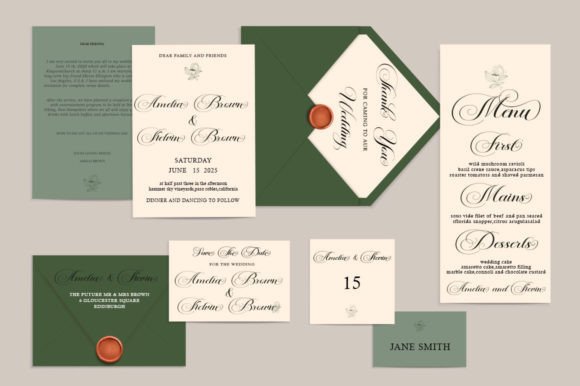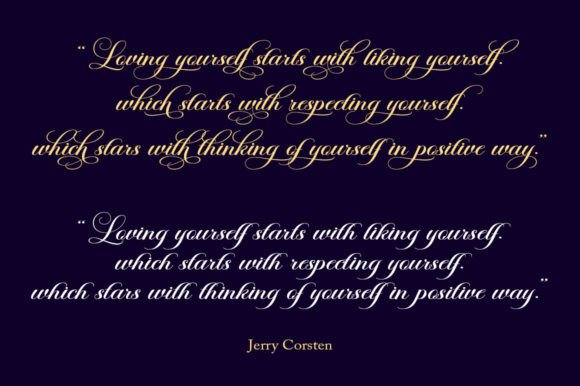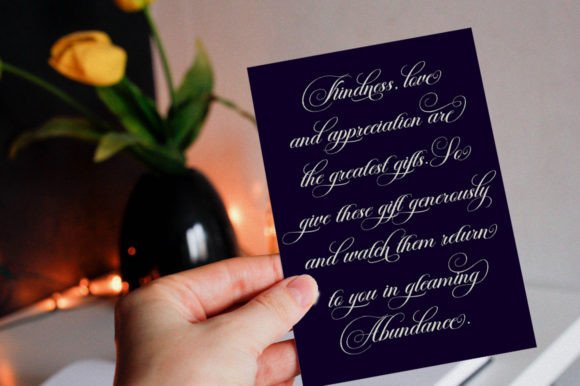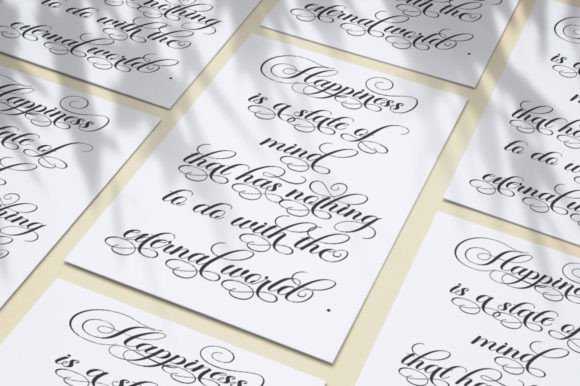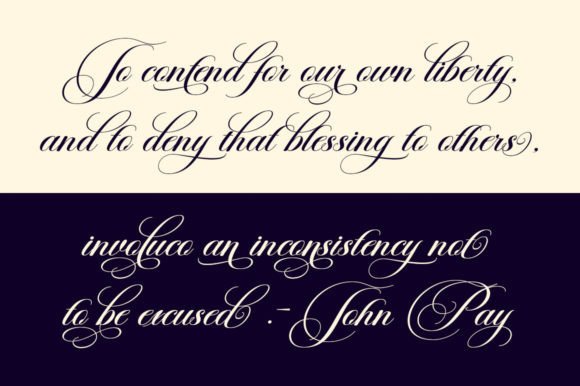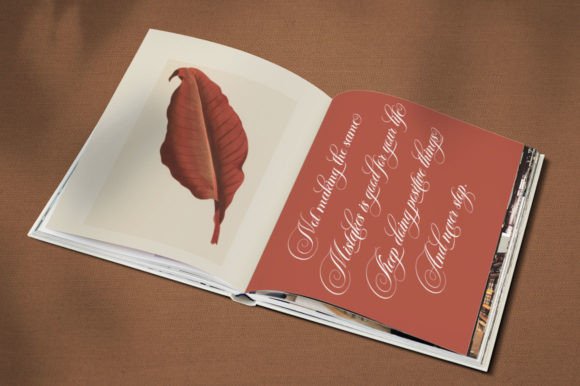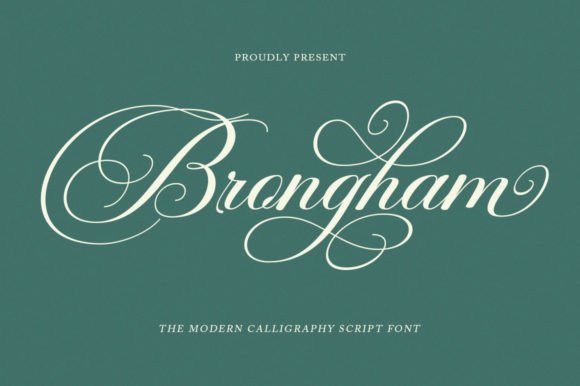
Introducing Brongham Font: A Stunning Calligraphy Script for Elegant Designs
Are you a designer or crafter looking for a font that exudes classic elegance with a modern twist? Look no further than Brongham Script, a beautiful calligraphy script font that is sure to elevate your designs. With its intricate details, smooth lines, and feminine charm, Brongham Script is the perfect choice for a wide range of creative projects.
What is Brongham Script?
Brongham Script is a calligraphy script font that boasts a classic decorative copper script style with a modern touch. Designed with high detail, this font is characterized by its smooth, clean, and elegant lines, making it perfect for designs that require a touch of sophistication. Whether you’re creating invitations, labels, menus, or logos, Brongham Script is sure to add a level of glamour and refinement to your work.
Key Features of Brongham Script
So, what sets Brongham Script apart from other fonts? Here are some of its key features:
- Changing Characters: Brongham Script comes with a range of changing characters, allowing you to create unique and varied designs.
- Fancy Letter Connections: The font features many fancy letter connections, making it smooth, clean, and easy to read.
Perfect for a Range of Design Projects
Brongham Script is a versatile font that can be used for a wide range of design projects, including:
- Invitations: Create stunning invitations for weddings, parties, and other special occasions.
- Labels: Design beautiful labels for products, gifts, or other items.
- Menus: Add a touch of elegance to restaurant menus, cafe menus, or other food-related designs.
- Logos: Create sophisticated logos for businesses, brands, or organizations.
- Fashion and Beauty: Use Brongham Script to create stylish designs for fashion, makeup, or beauty-related projects.
- Stationery: Design beautiful stationery, including letterheads, notebooks, or journals.
- Novels and Magazines: Use Brongham Script to create elegant book covers, magazine covers, or article layouts.
- Greeting and Wedding Cards: Create stunning greeting cards, wedding cards, or other special occasion cards.
- Packaging: Design eye-catching packaging for products, including gift boxes, labels, or inserts.
Why Choose Brongham Script?
So, why should you choose Brongham Script for your design projects? Here are just a few reasons:
- Elegance: Brongham Script exudes classic elegance with a modern twist, making it perfect for designs that require sophistication.
- Versatility: The font can be used for a wide range of design projects, from invitations to packaging.
- Easy to Read: Despite its intricate details, Brongham Script is easy to read, making it perfect for body text or headlines.
- Unique: With its changing characters and fancy letter connections, Brongham Script is a unique font that will set your designs apart.
In conclusion, Brongham Script is a stunning calligraphy script font that is perfect for designers and crafters looking to add a touch of elegance to their designs. With its intricate details, smooth lines, and feminine charm, Brongham Script is sure to elevate your designs and make them stand out. Whether you’re creating invitations, labels, menus, or logos, Brongham Script is the perfect choice for any design project that requires sophistication and style.